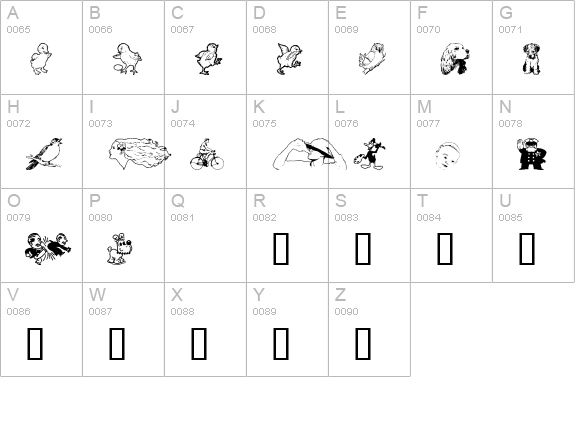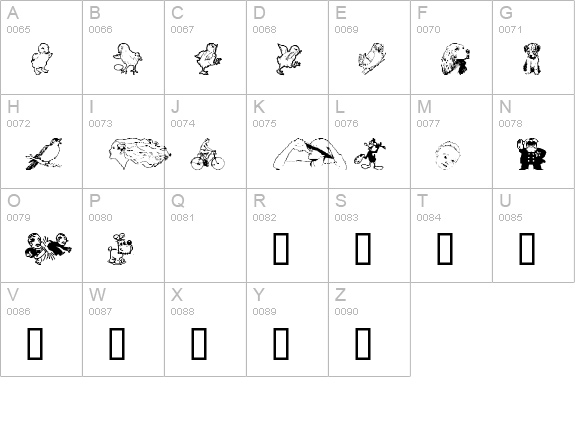
LIDU Lidu Font Details
LIDU Lidu font is a stunning and versatile typeface that exudes elegance and modernity. Its sleek and stylish design makes it perfect for a wide range of projects, from branding to editorial design. The clean lines and balanced proportions of LIDU Lidu font give it a timeless appeal that will elevate any design it is used in. The best part about LIDU Lidu font is that it is completely free to download at FontsMarket.com. This means that you can add this beautiful font to your collection without having to spend a penny. Whether you are a professional designer looking to expand your font library or a hobbyist wanting to experiment with new typefaces, LIDU Lidu font is a fantastic choice that won't break the bank. With its unique aesthetic and high-quality design, LIDU Lidu font is sure to become a go-to option for your future projects. Download it today and see how this free font can enhance your designs and take them to the next level.